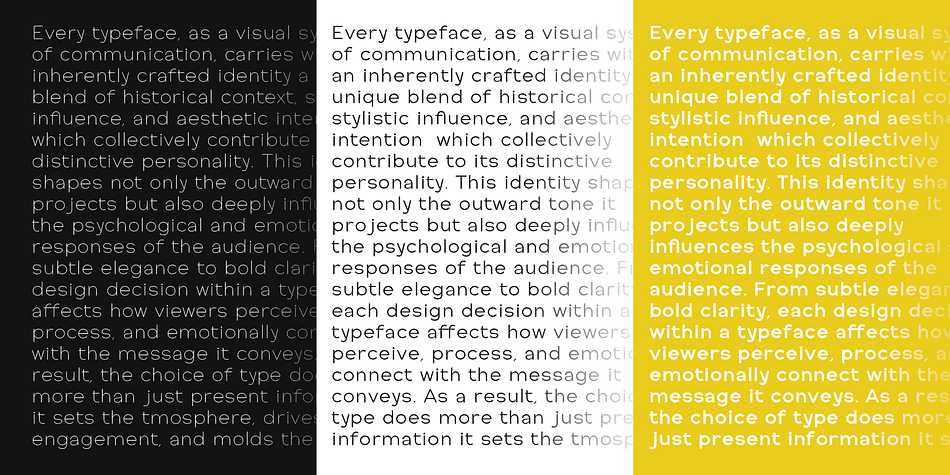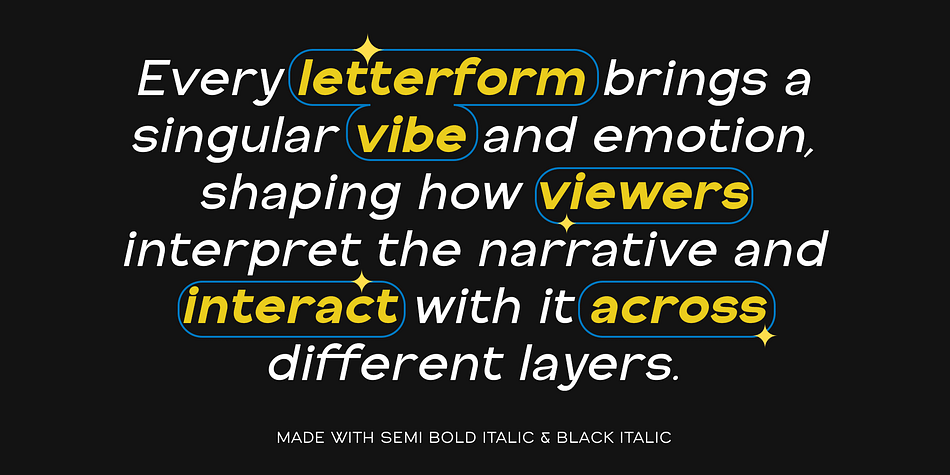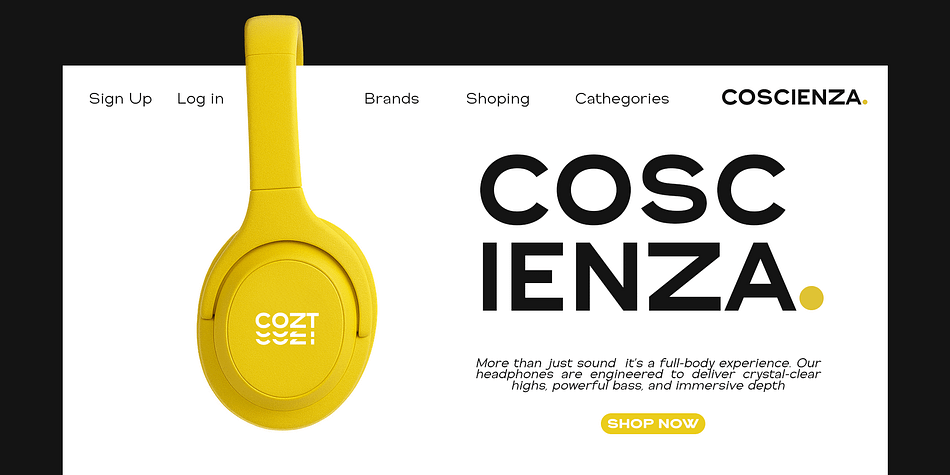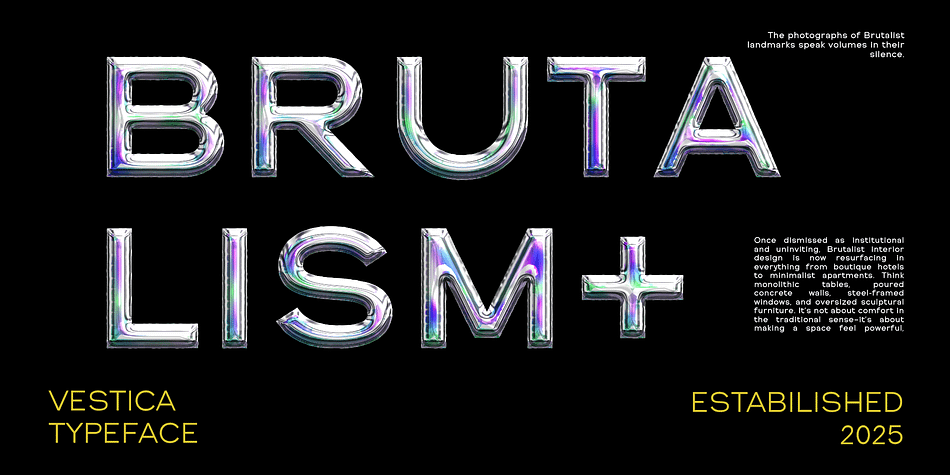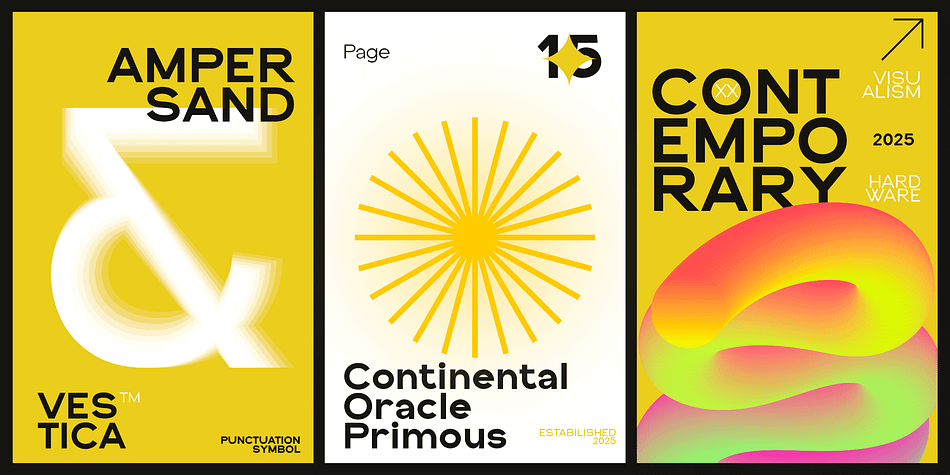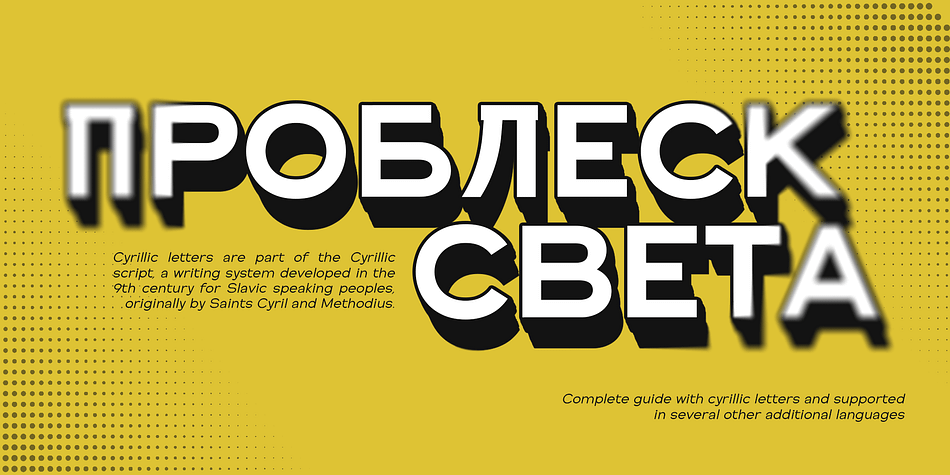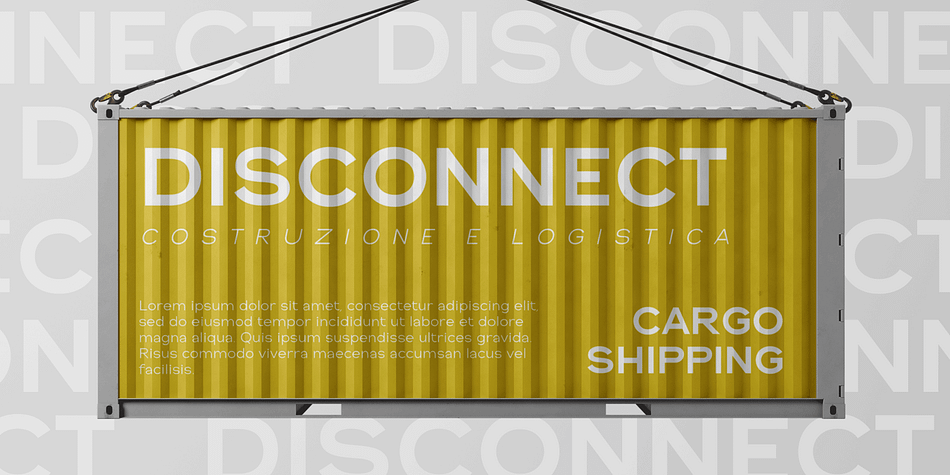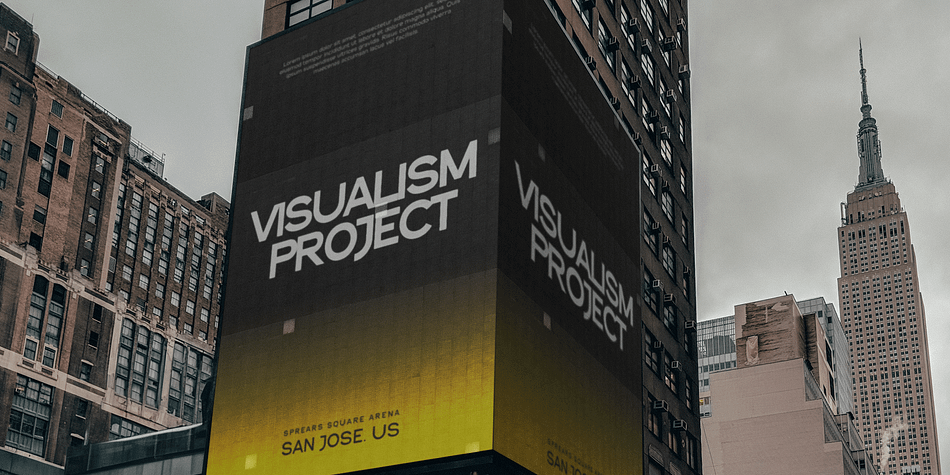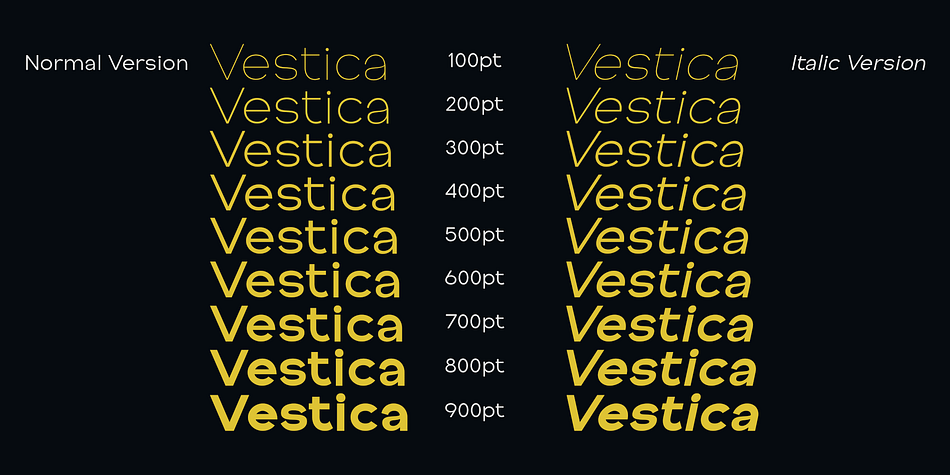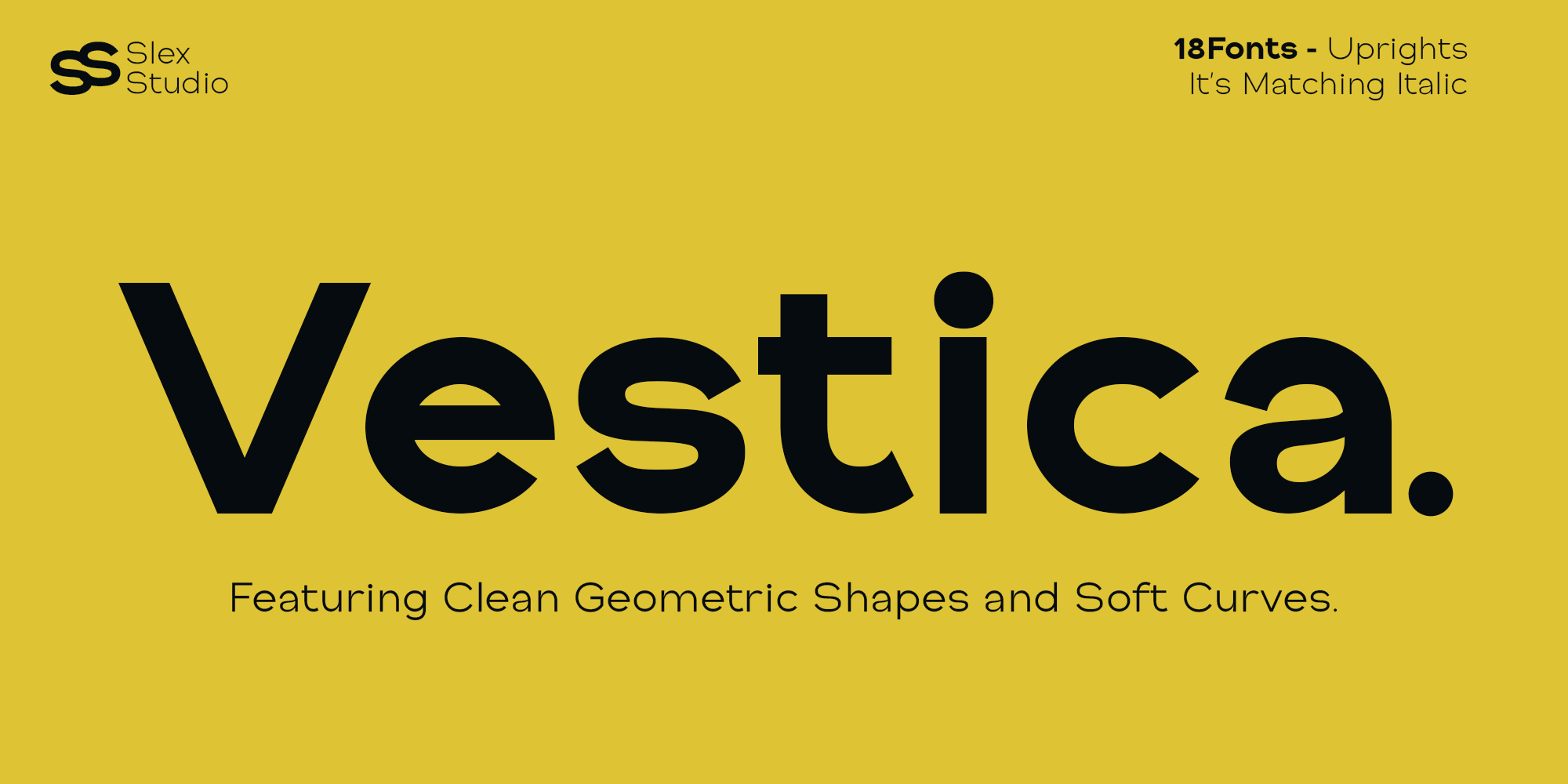
Vestica Neue
Designed by Muhammad Rayyan, Vestica Neue is a sans serif font family. This typeface has nineteen styles and was published by Slex Studio.
Introducing Vestica Neue, a modern geometric sans serif typeface designed for clarity, balance, and versatility. With clean lines, uniform proportions, and a minimalist aesthetic, this font is perfect for contemporary branding, editorial design, user interfaces, and web applications.
Inspired by classic geometric typefaces, Vestica Neue features circular letterforms, consistent stroke widths, and a harmonious rhythm that enhances readability across all media. It includes a full set of uppercase and lowercase letters, numerals, punctuation, and multilingual support.
Whether you’re crafting a bold headline, designing a sleek logo, or building a refined layout, Vestica Neue delivers timeless style with a modern edge.